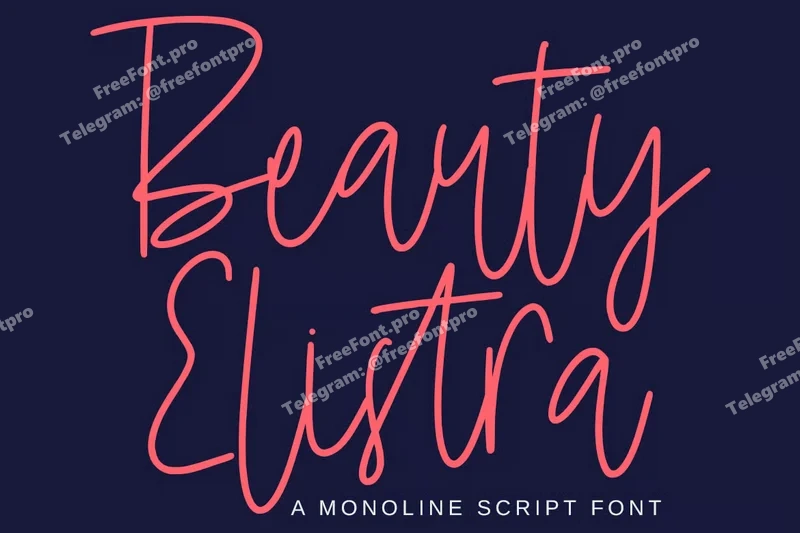
Beauty Elistra – Monoline Script Font
Embrace elegance and modern simplicity with Beauty Elistra, a captivating monoline script font designed to infuse your projects with effortless style. This typeface features a consistent, single-weight line, giving it a clean, polished, and contemporary appearance that beautifully balances charm and sophistication. Beauty Elistra is more than just script; it’s a whisper of luxury, perfect for designs that require a refined, personalized touch.
Uppercase Letters
Ligature & Alternate Character
Unique Hand-Drawn Style